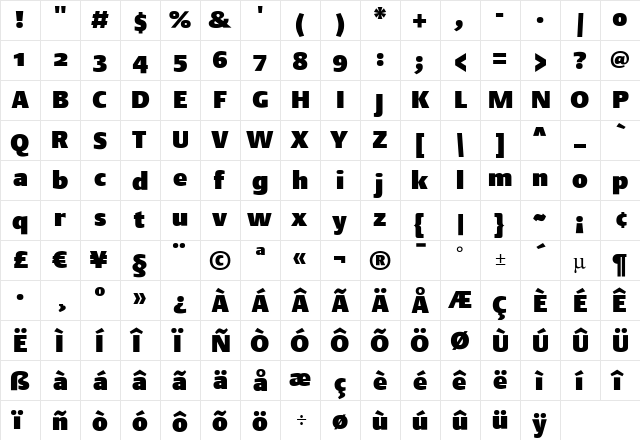
DTLArgoST Heavy
Design Context for DTLArgoST Typeface
DTLArgoST takes a measured approach to typography — its balanced proportions and neutral character make it a reliable workhorse for both digital and print work.